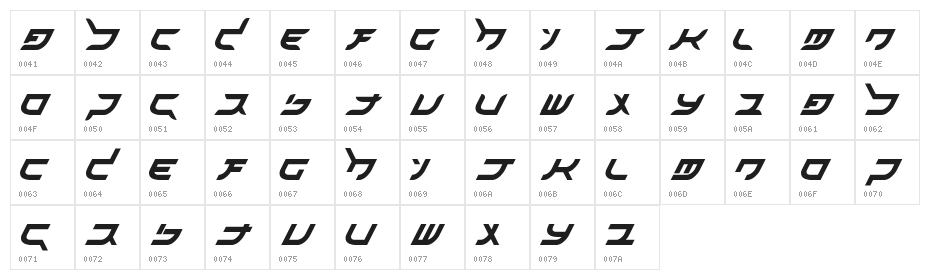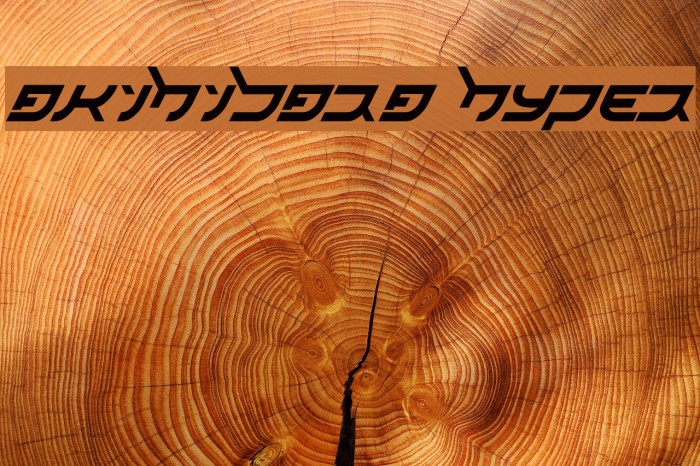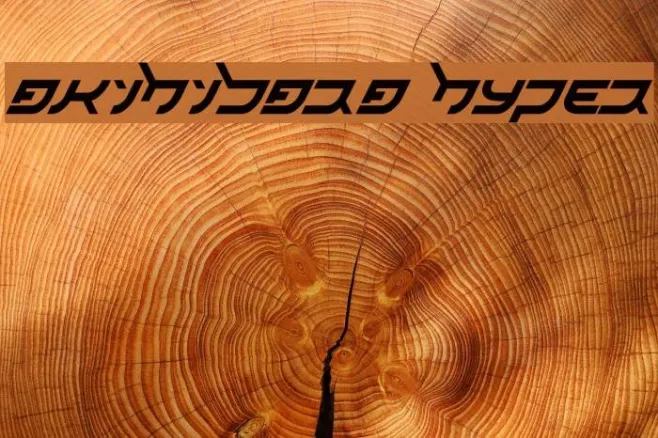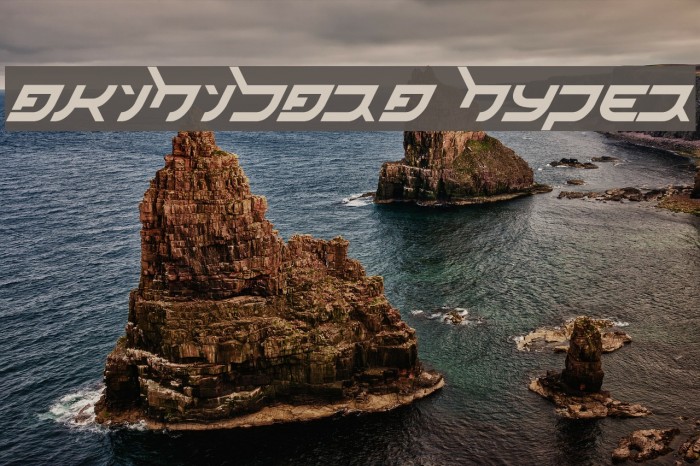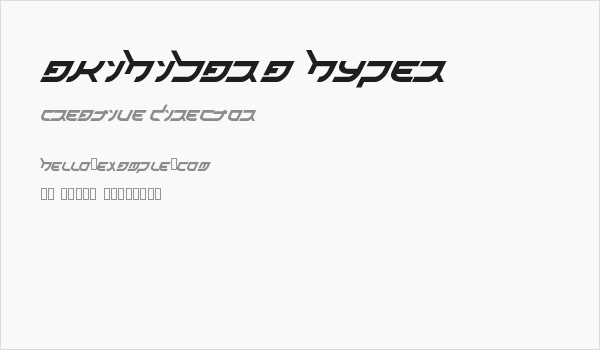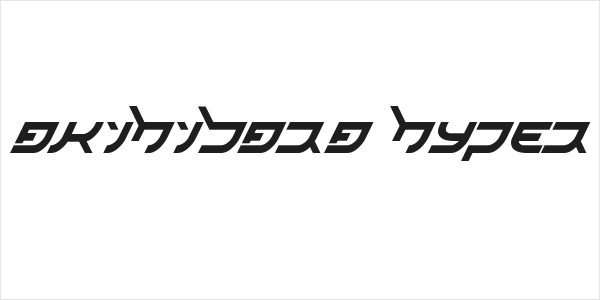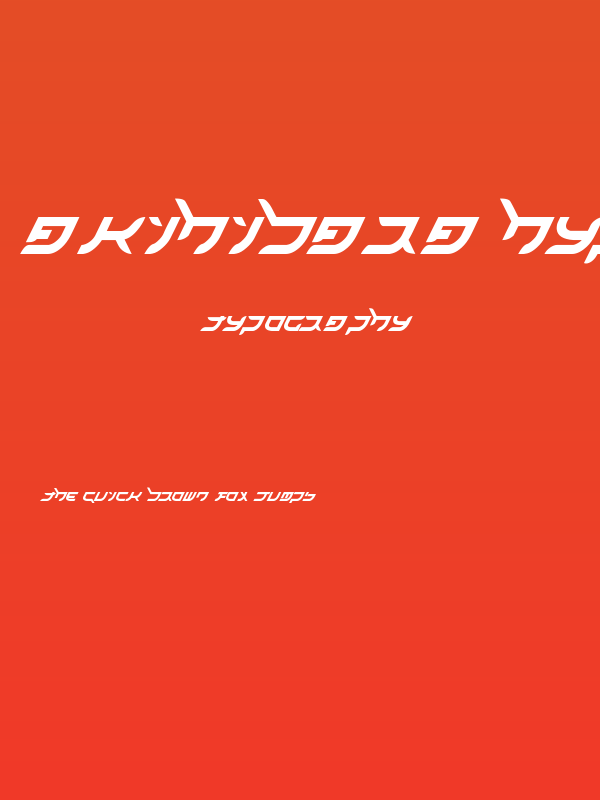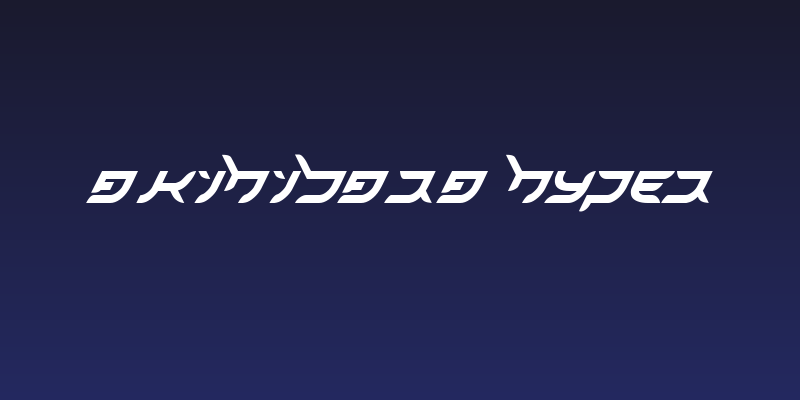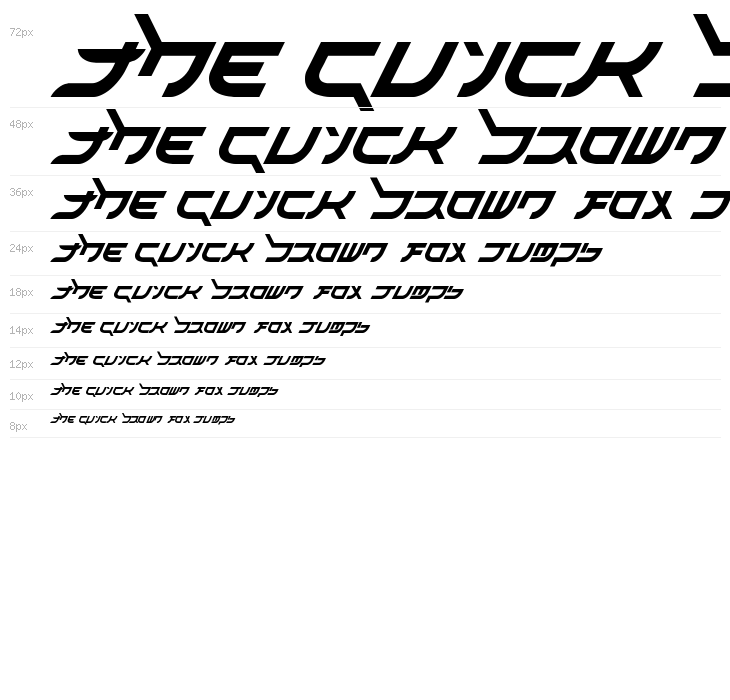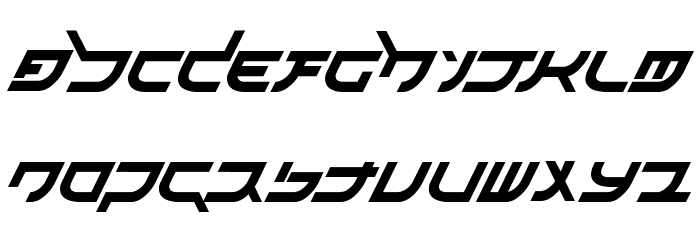
akihibara hyper Font
akihibara hyper Description
This font features a futuristic and angular design, characterized by sharp edges and a dynamic, forward-leaning posture. The characters are stylized with a unique geometric flair, giving them a tech-inspired appearance. The uppercase letters are bold and striking, while the lowercase letters maintain the same angular aesthetic, creating a cohesive look. The numbers and special characters follow the same design principles, ensuring consistency throughout. This font's distinct style makes it stand out, perfect for projects that require a modern and edgy feel.